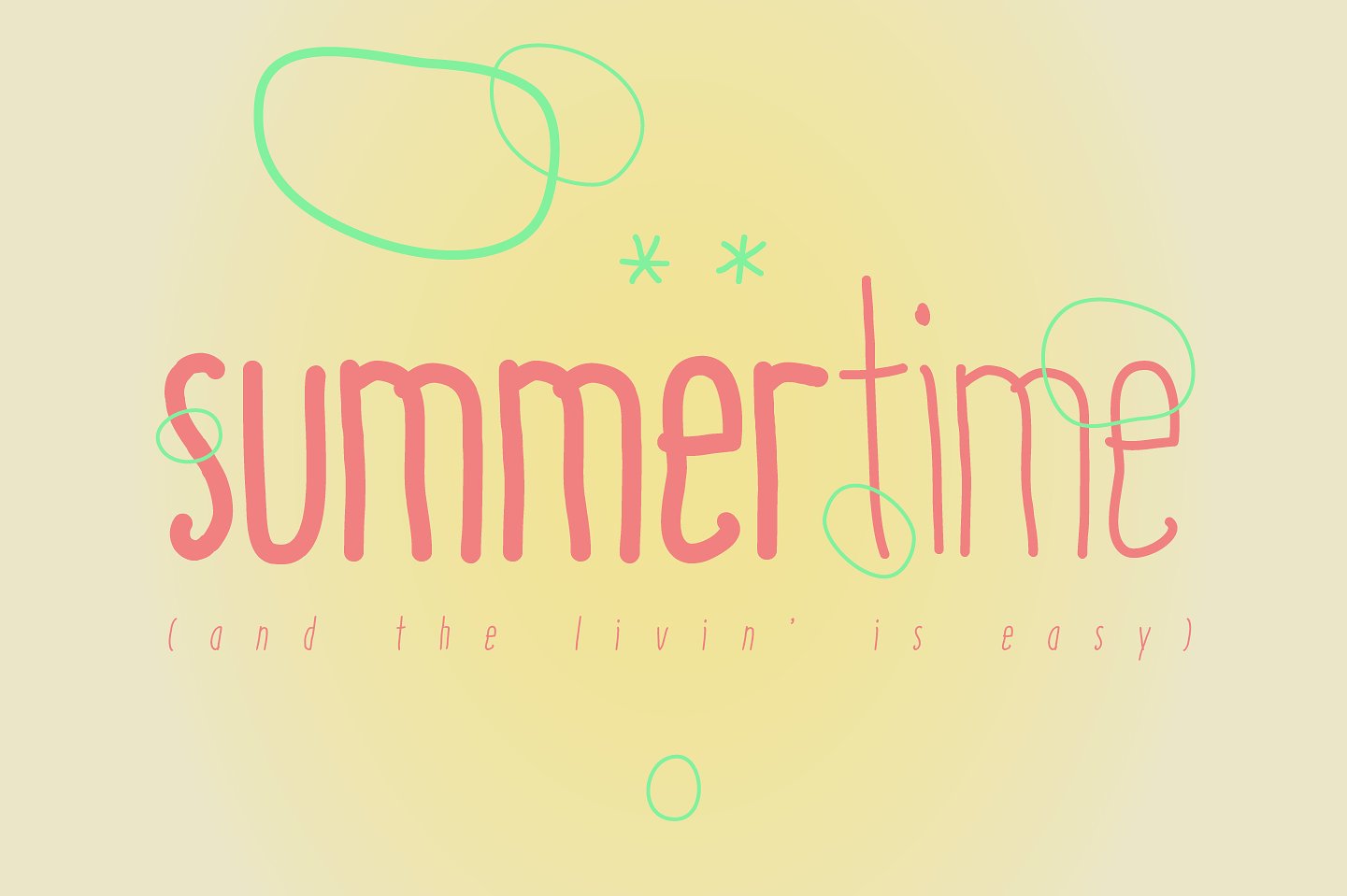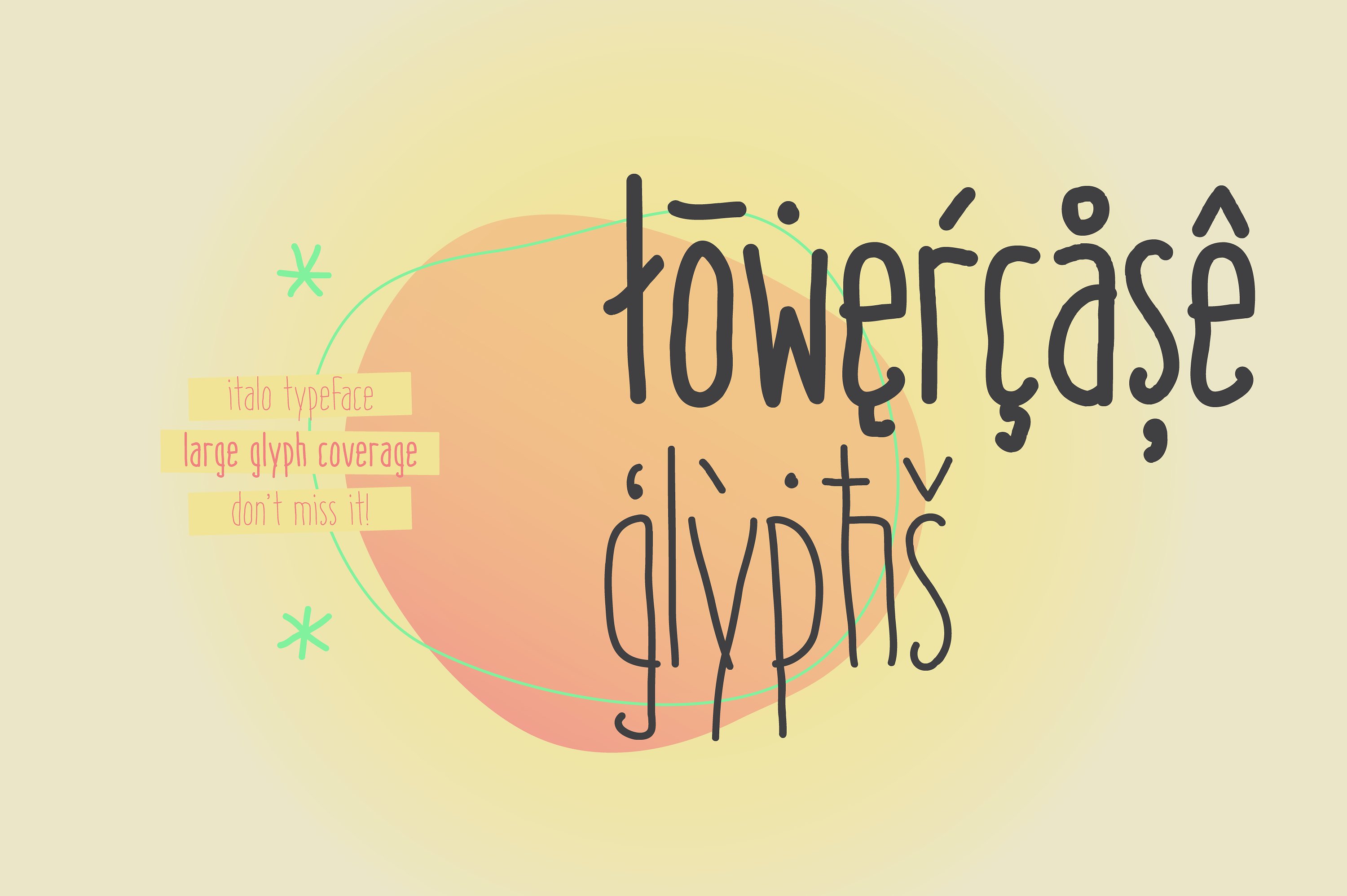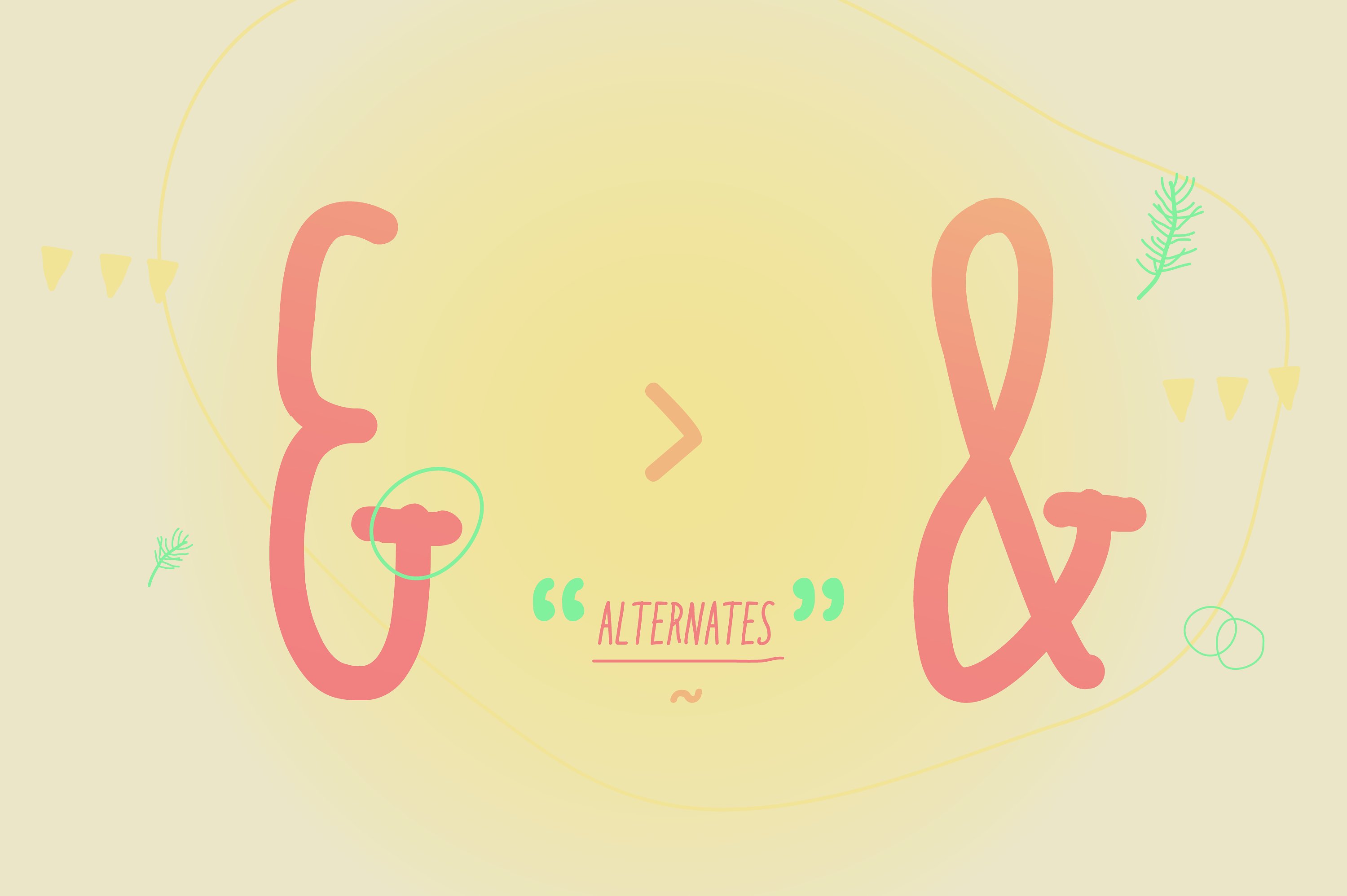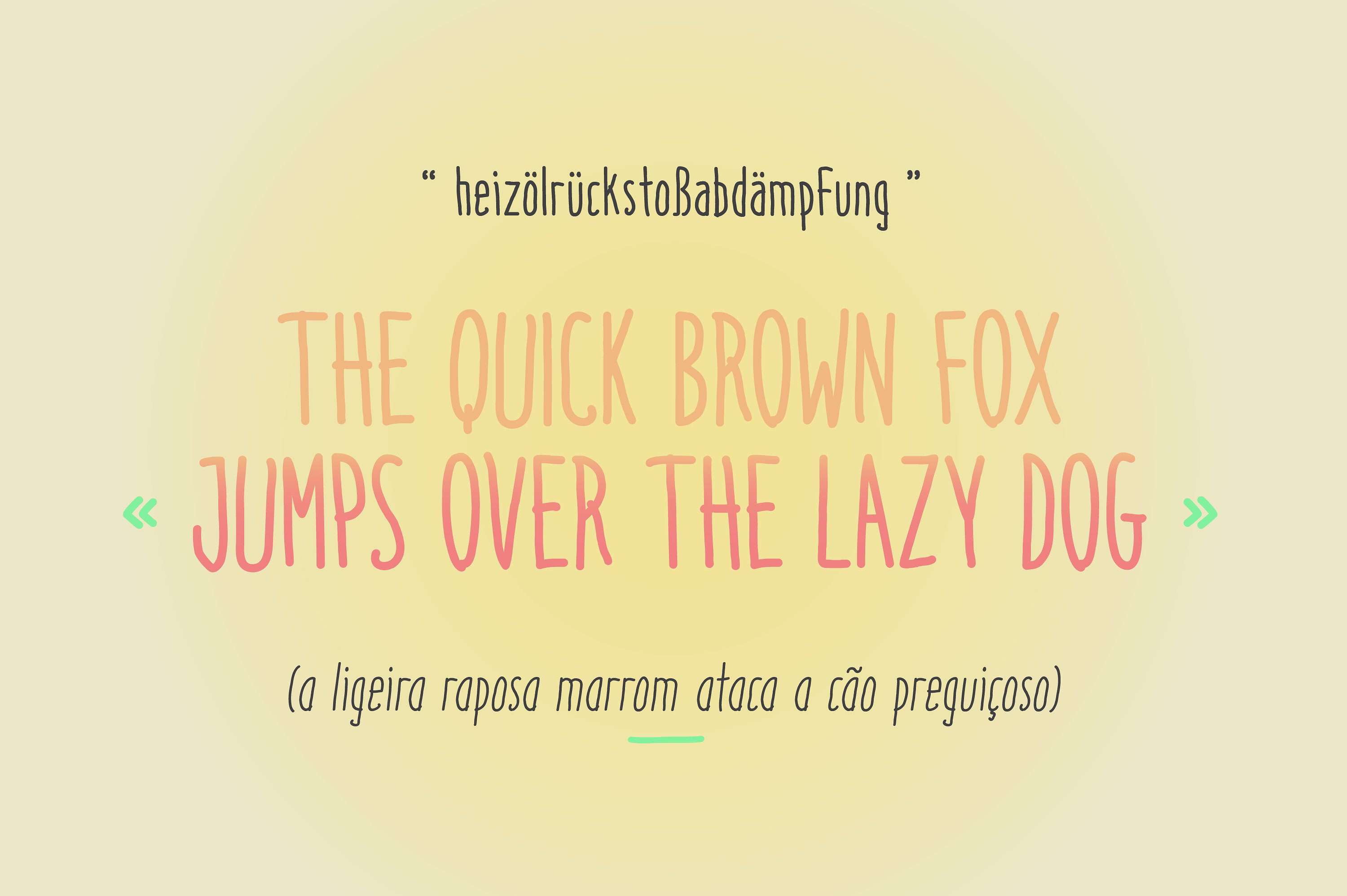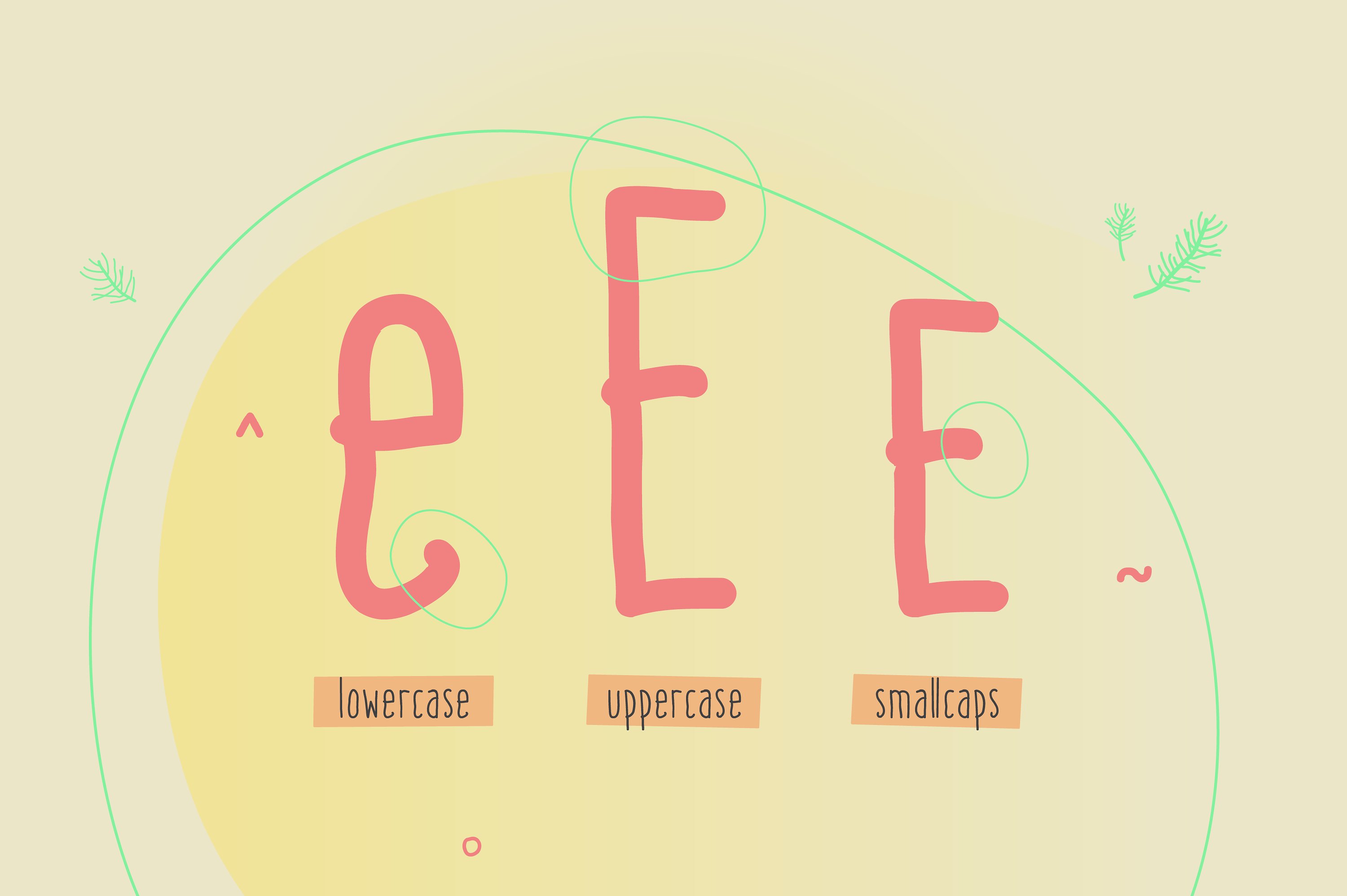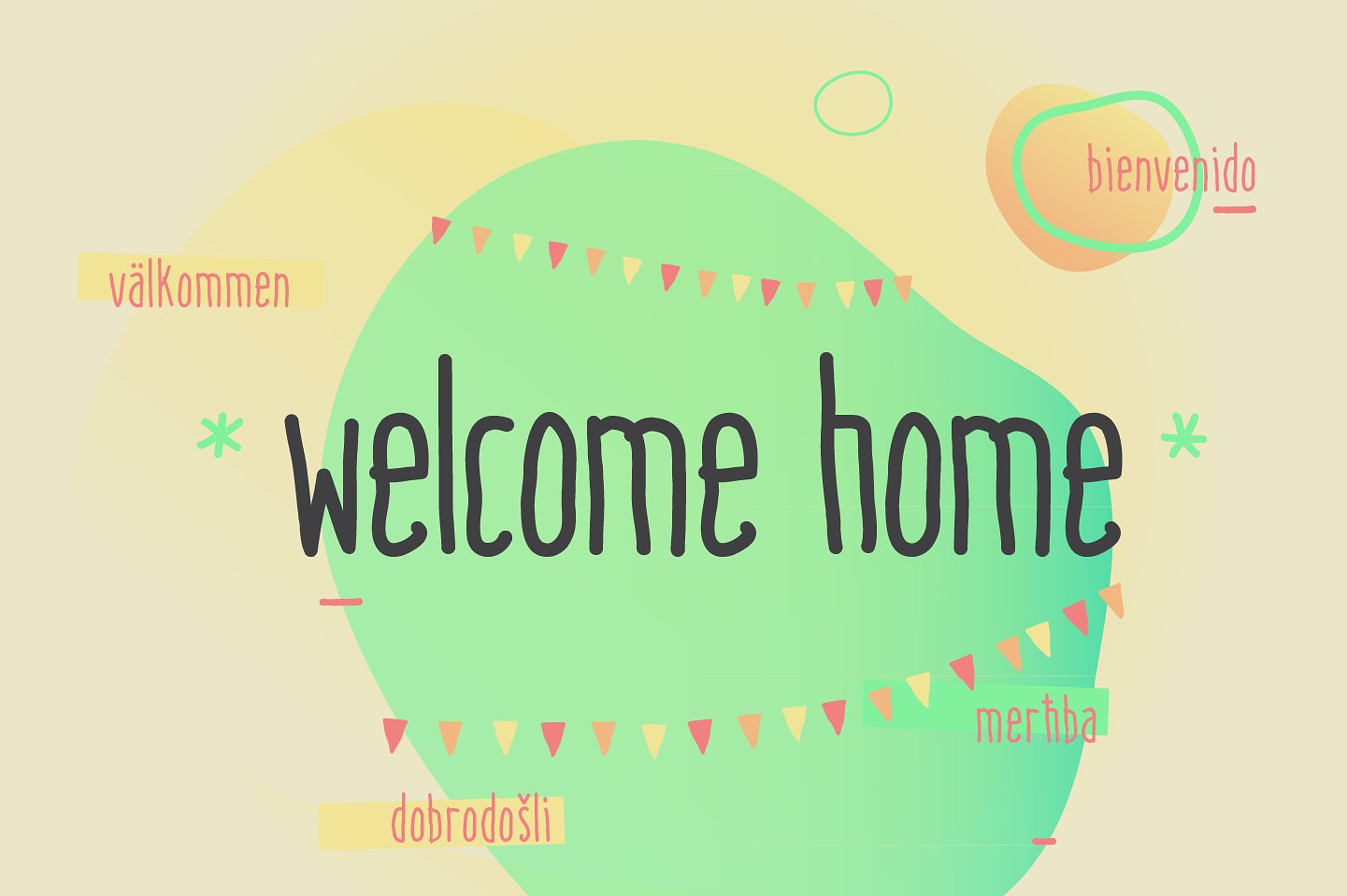
Introduction to Italo Font
Italo is a beautiful and relaxed friendly sans serif font; this informal font can provide a cute, handwritten look to your work.
This is a great font option for use in headlines and body text .
Key Features of Italo Font
Why Choose Italo Font?
Italo Font offers exceptional quality and versatility, making it a valuable addition to your design toolkit. Whether you’re creating for personal projects or commercial use, Italo Font delivers professional results.